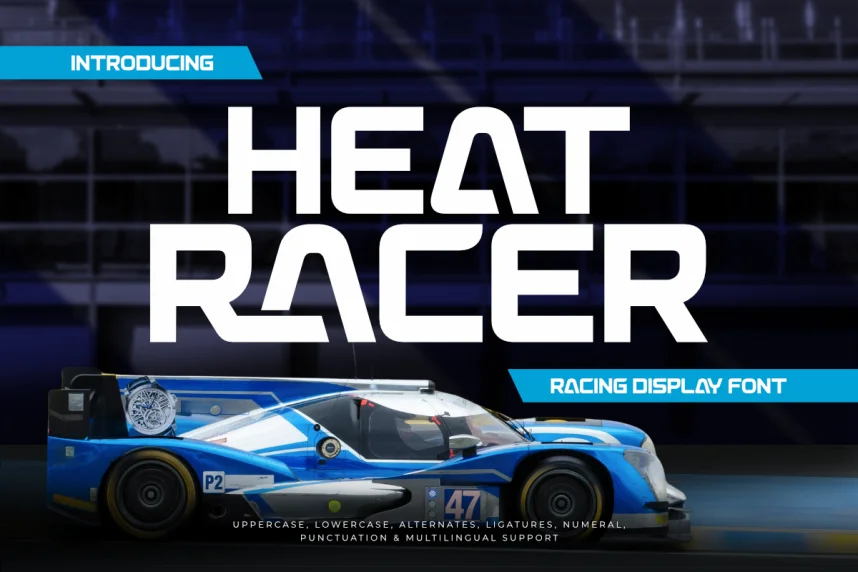
Heat Racer Font is a display typeface created to support speed-focused branding and sports-related graphics. Designers often need racing-style lettering that remains readable in logos, banners, and merchandise where movement and energy are visually implied.
Heat Racer uses slanted letterforms, thick strokes, and angular cuts that suggest motion. The condensed structure allows more text in limited space while keeping characters distinct. The font is designed for headlines, logos, and short phrases rather than body text and usually includes uppercase characters and numerals.